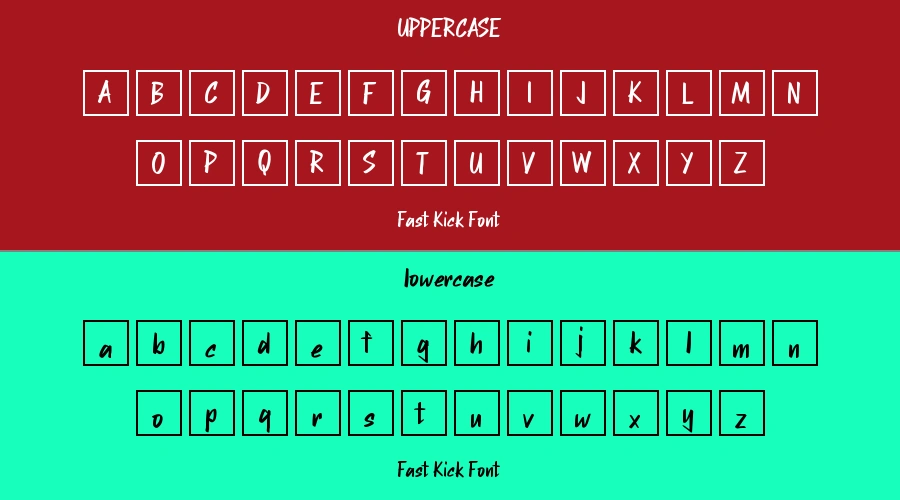
About Fast Kick Font
Fast Kick Font embodies typographic excellence through its masterful combination of ink traps and visual comfort. Created for social media content, this typeface delivers exceptional versatility and design excellence across all applications. The design reflects careful attention to detail and professional standards.
Advanced capabilities include distinctive graceful transitions and versatile pi characters, giving designers creative control. When used in academic theses, Fast Kick Font exhibits remarkable OCR compatibility. The harmonious balance between aperture size and cultural relevance sets this typeface apart.